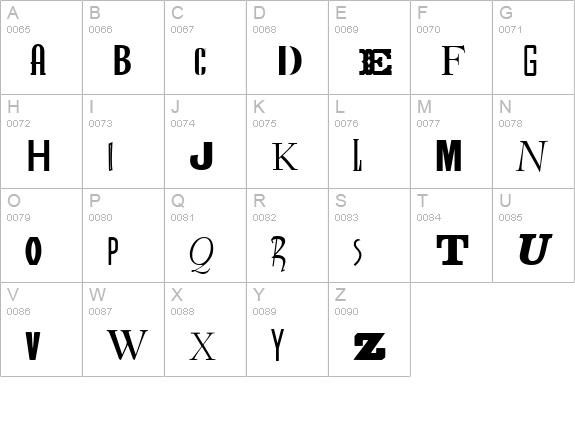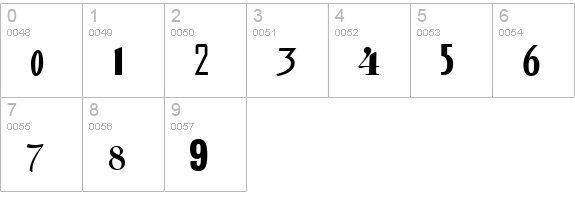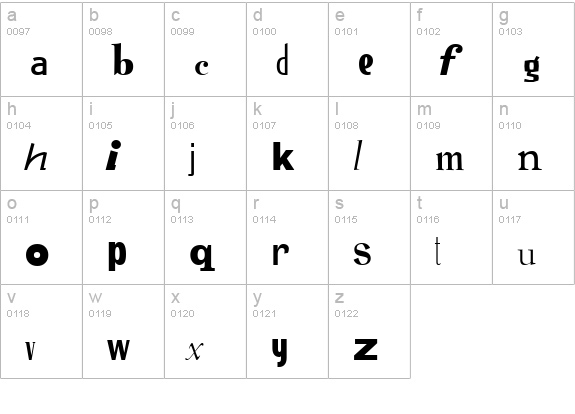
Ransom Bold is a strong, high-contrast variant in the Ransom typeface family \xE2\x80\x94 well suited to headlines, attention-grabbing titles, and strong calls-to-action.
Introducing Ransom Bold, a captivating and versatile font that is sure to make a bold statement in any design project. This unique typeface exudes confidence and strength, with its sharp edges and strong lines that demand attention. Ransom Bold is the perfect choice for those who dare to be different and want to stand out from the crowd. Its bold and commanding presence instantly grabs the viewer's attention, making it ideal for headlines, titles, and branding materials. Whether it's for a poster, logo, or website, Ransom Bold adds a touch of elegance and sophistication to any design. But what sets Ransom Bold apart from other fonts is its incredible versatility. This font can effortlessly transition from a modern and edgy look to a classic and timeless feel, adapting to any design concept. It complements both minimalist and extravagant designs, making it a go-to choice for designers seeking a font that can adapt to any project. And the best part? Ransom Bold is freely available to download at FontsMarket.com. Yes, you read that right – this stunning font can be yours without any cost. We believe that creativity should be accessible to all, and that's why we made Ransom Bold available for everyone to enjoy and create with. So, go ahead and unleash your creativity with Ransom Bold. Download it today from FontsMarket.com and experience the power and versatility of this captivating font. Whether you're designing a poster, branding materials, or a website, Ransom Bold will help you make a lasting impression and leave your audience in awe. Don't miss out on this opportunity to add a touch of boldness and elegance to your designs – get Ransom Bold now and let your creativity shine!